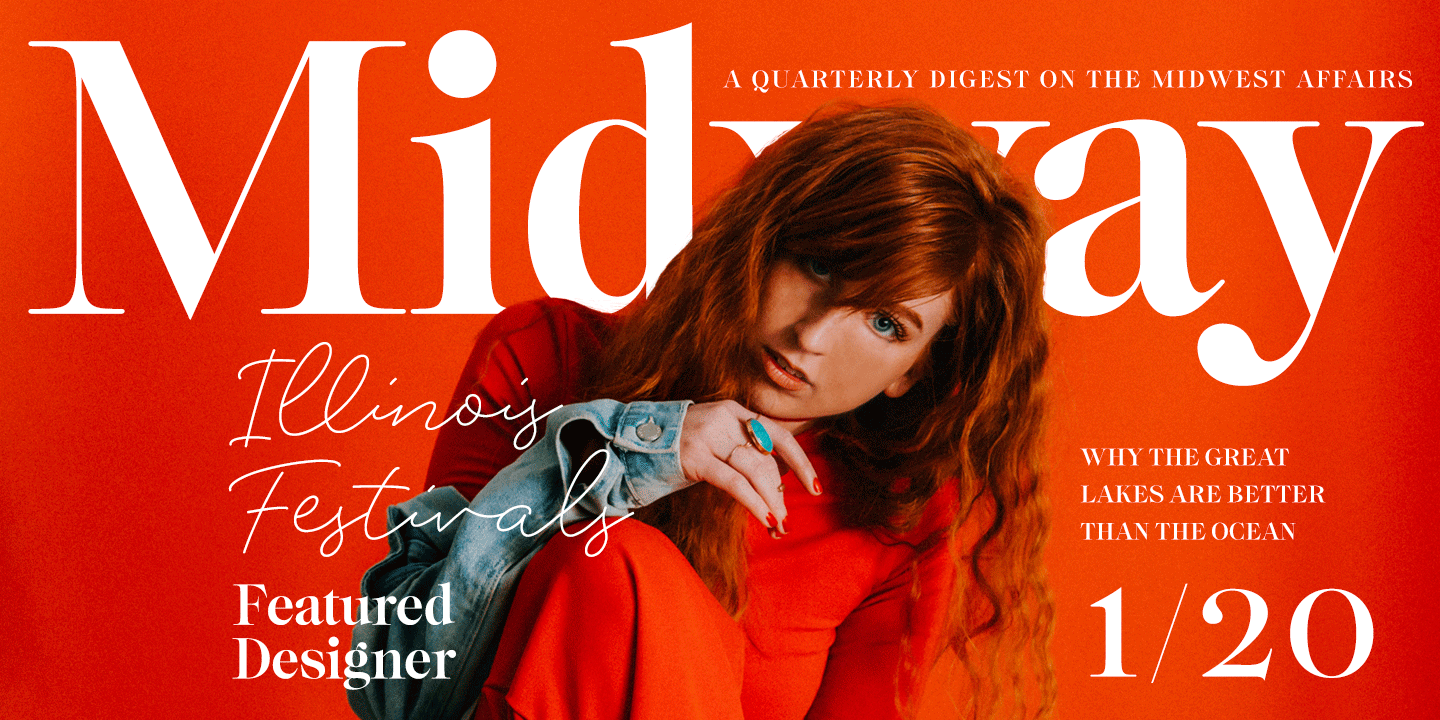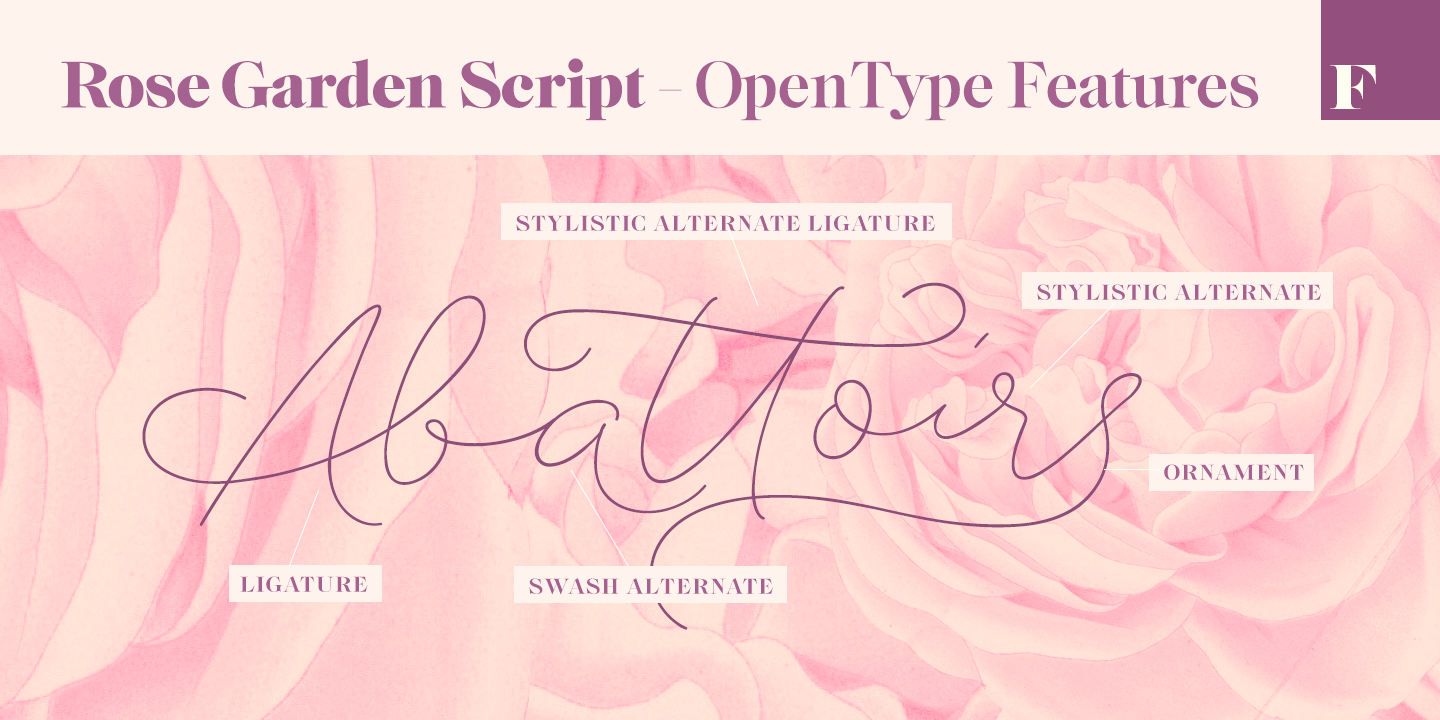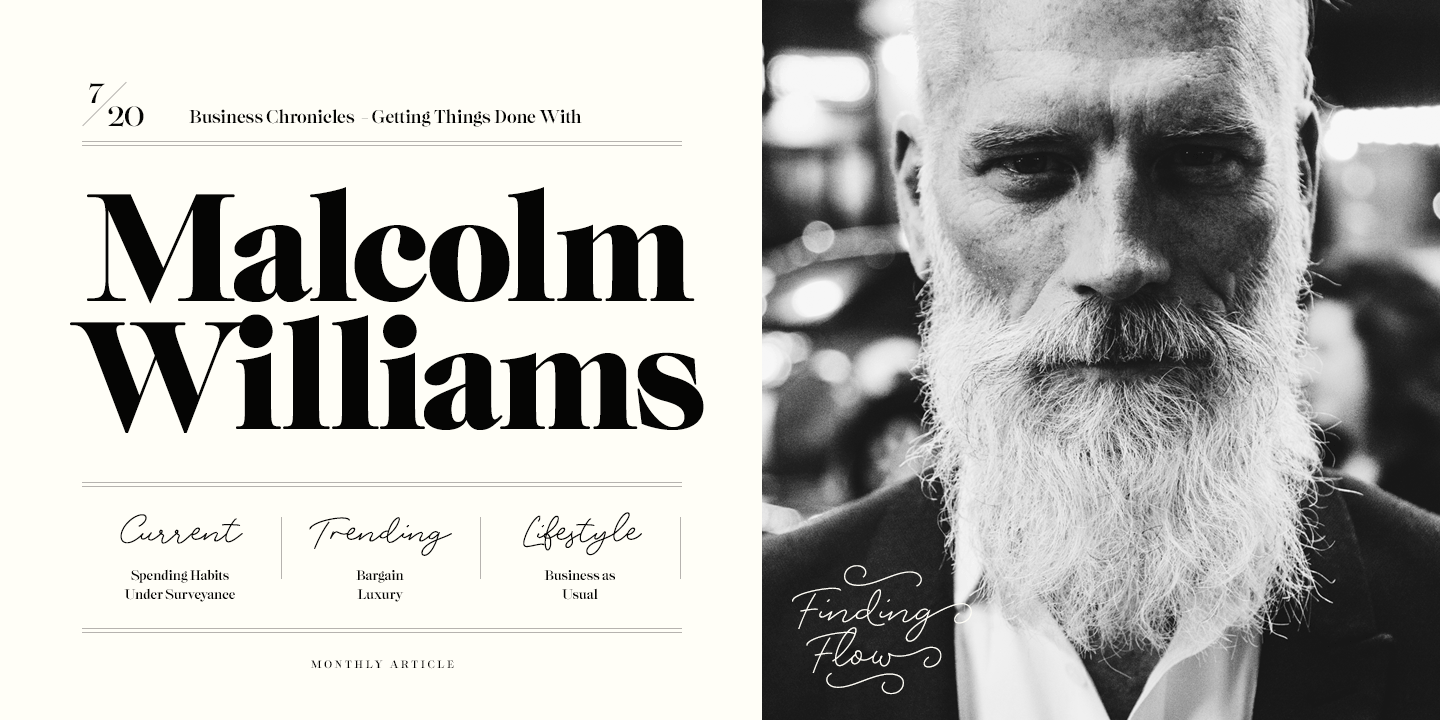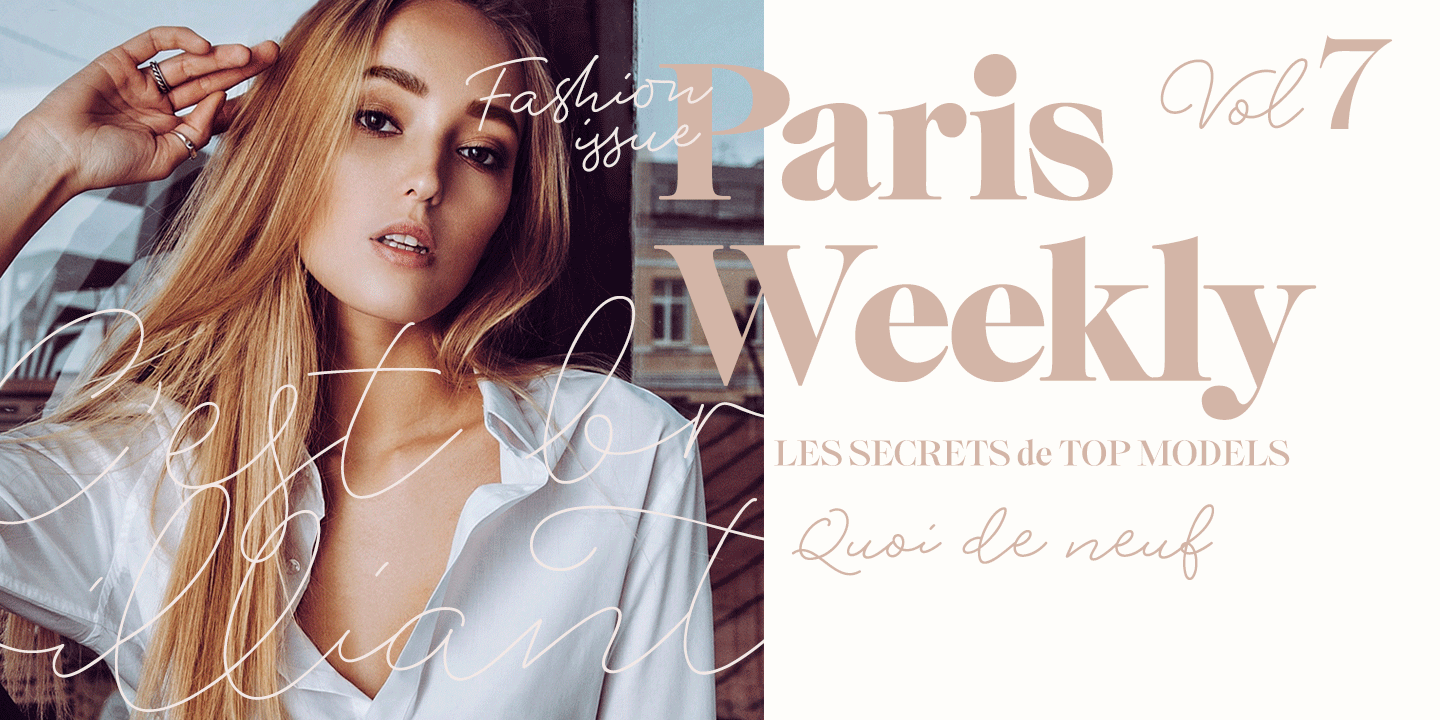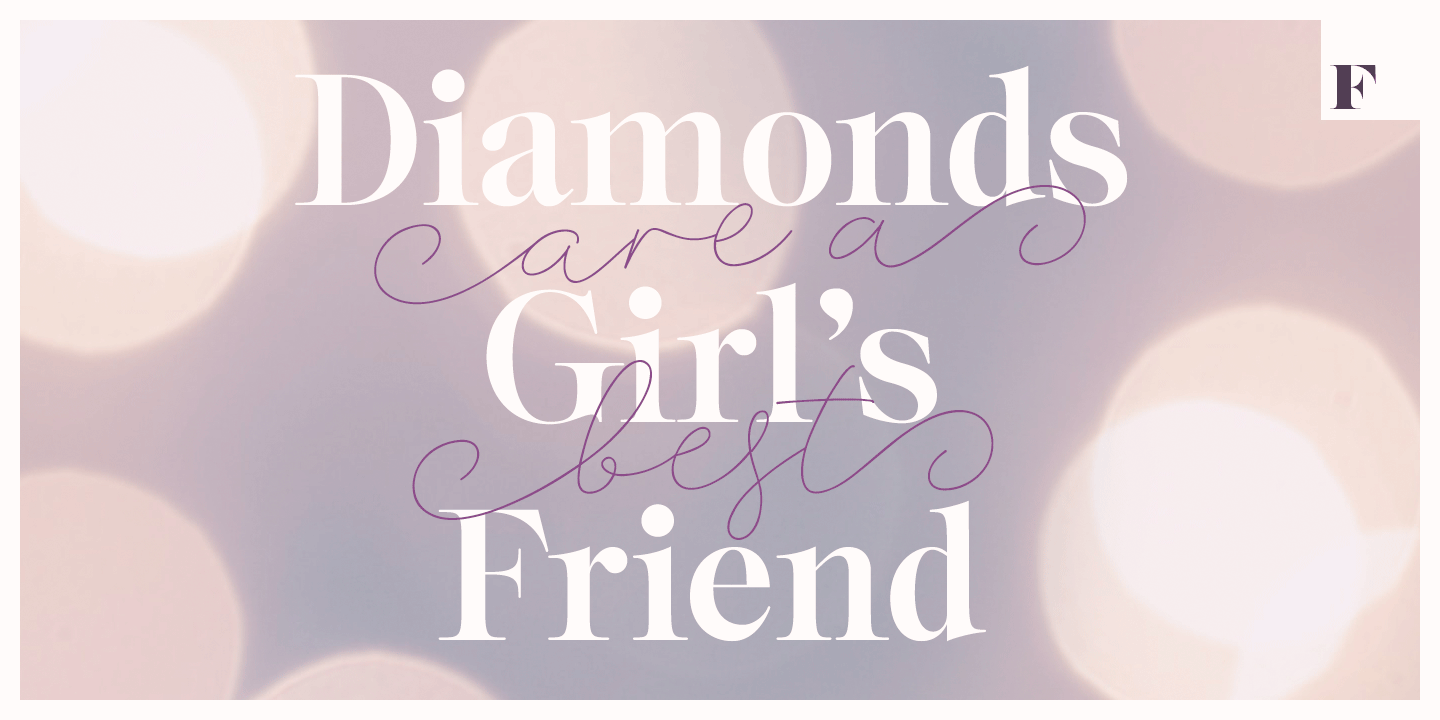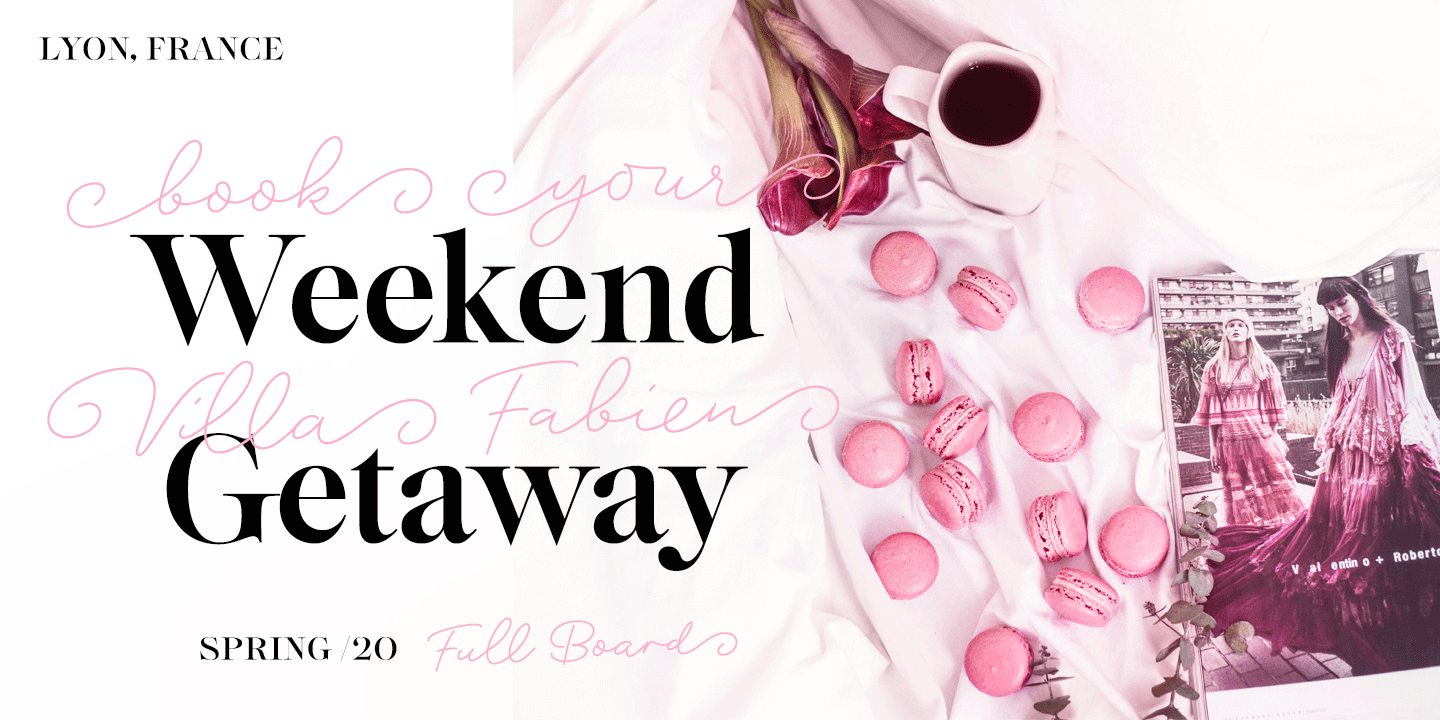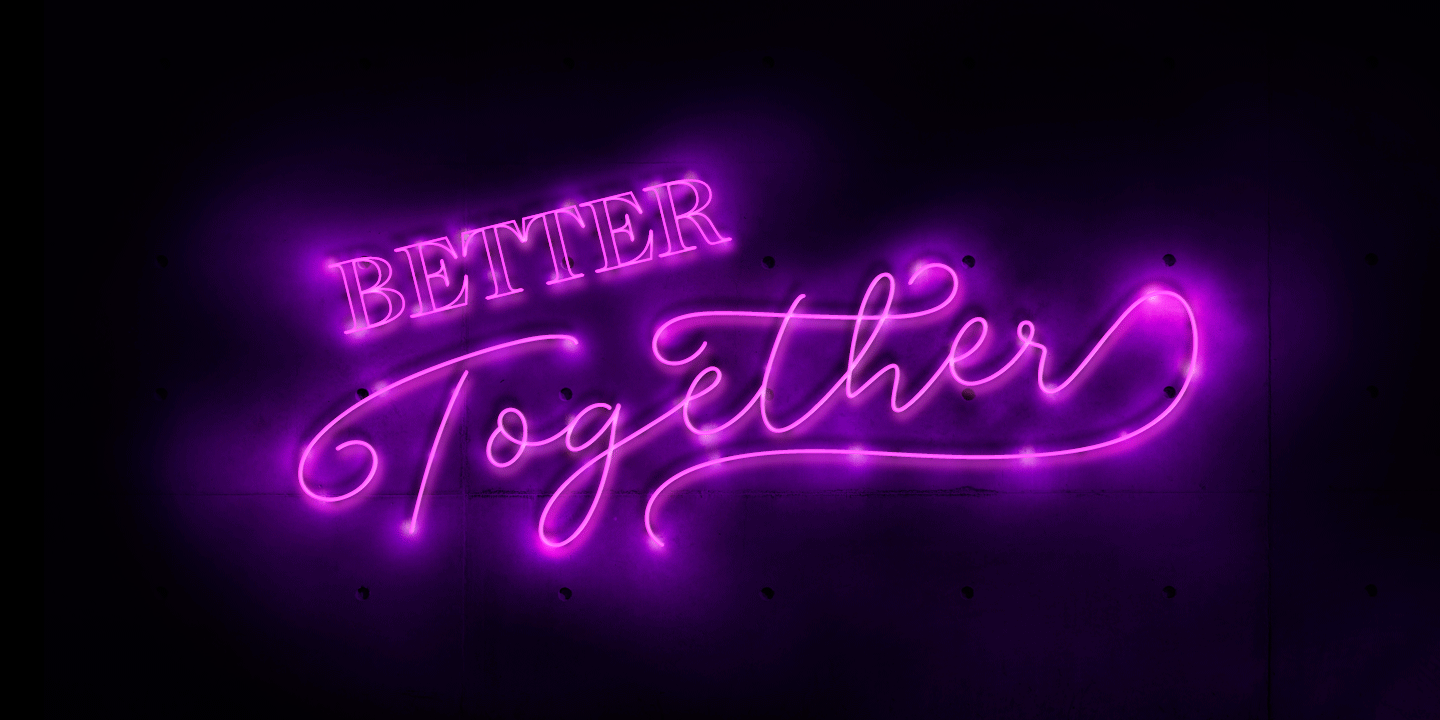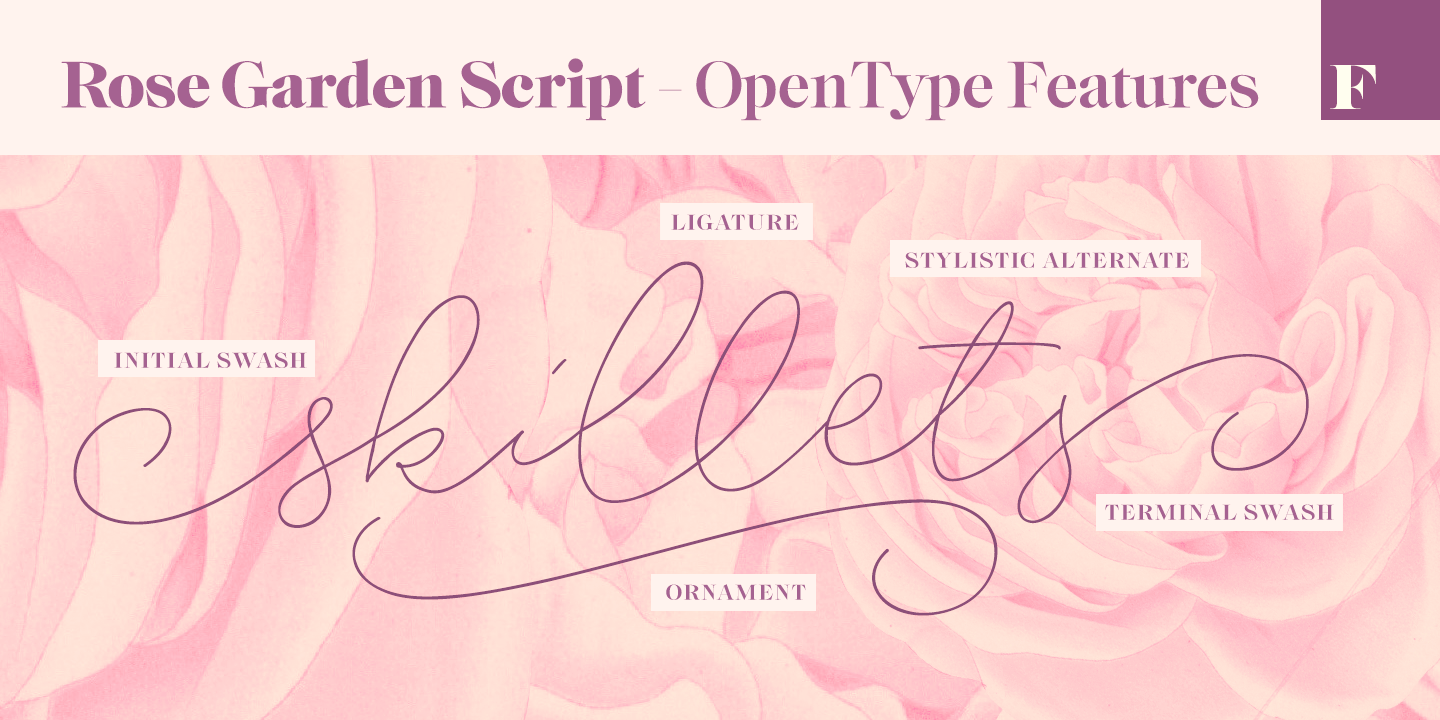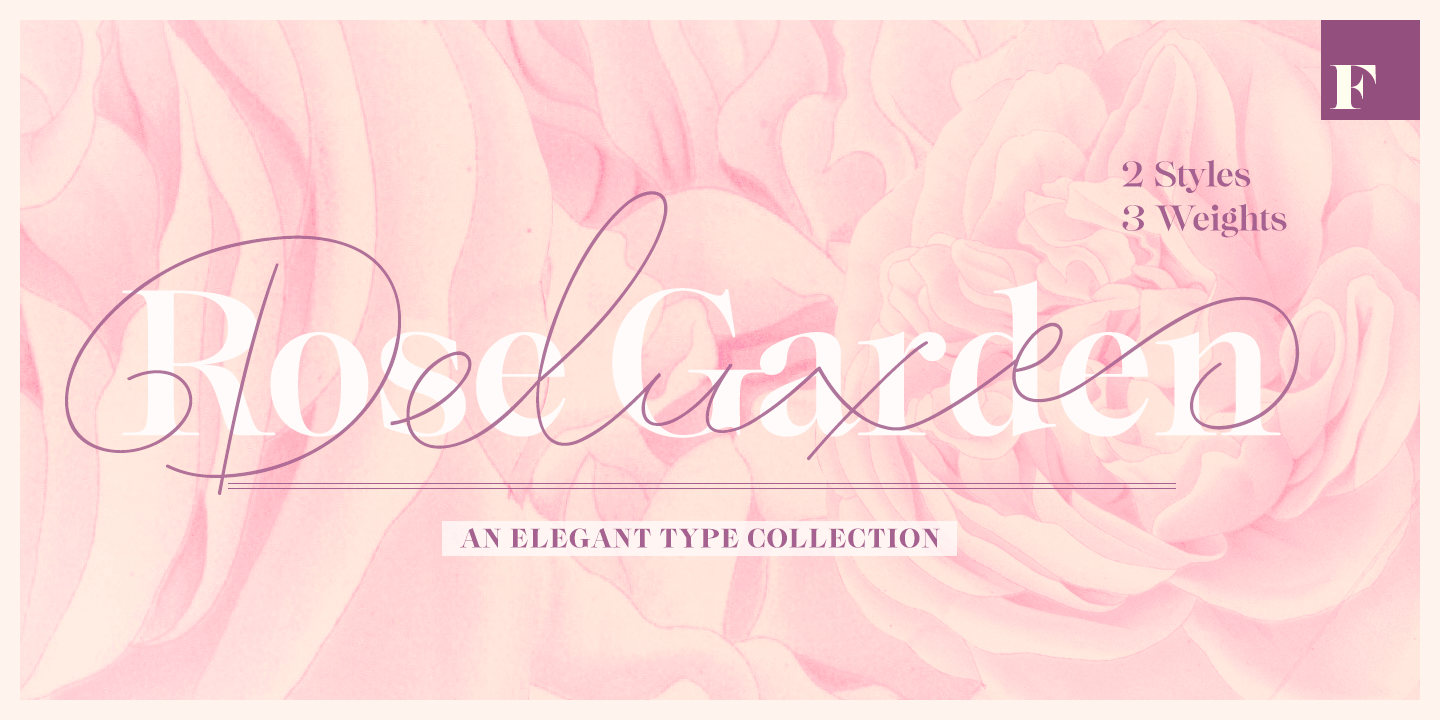
Rose Garden Deluxe
About Rose Garden Deluxe
Rose Garden Deluxe is an elegant type collection including a luscious high contrast serif in three weights and an ethereal pen script also in three weights. Together the fonts form an effective all-around set for sophisticated display purposes. The fonts…